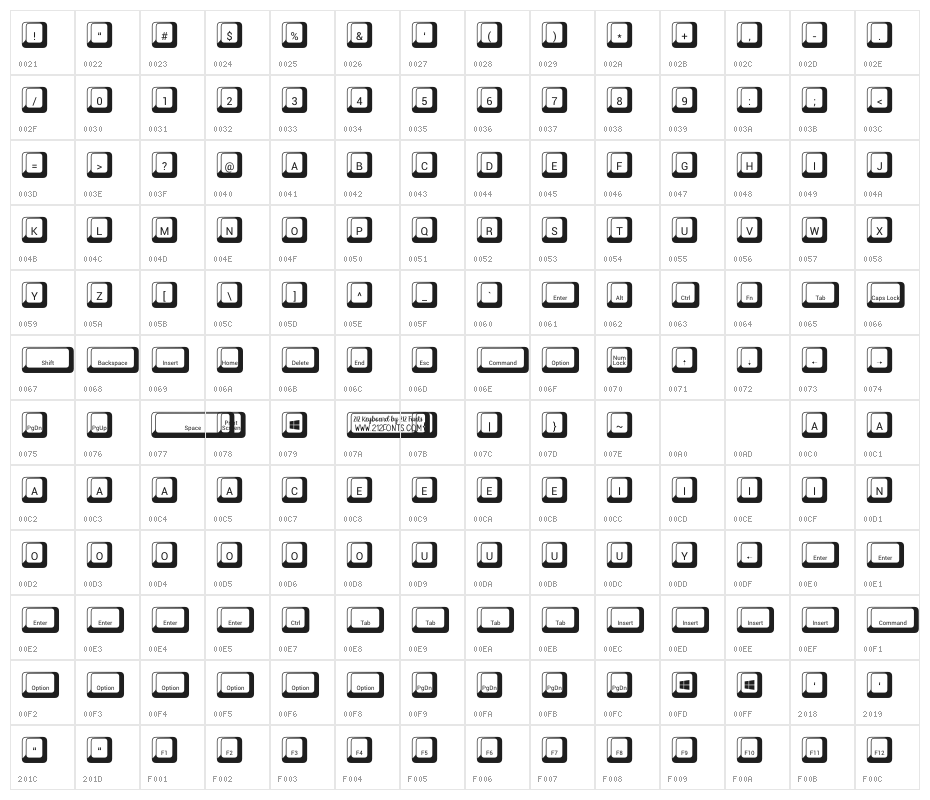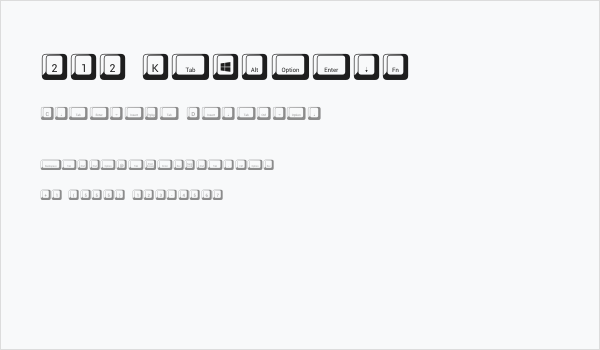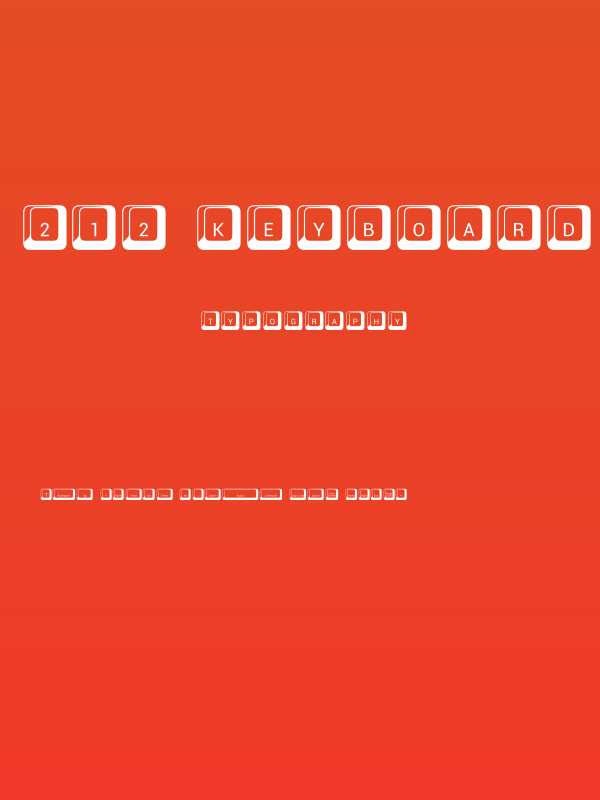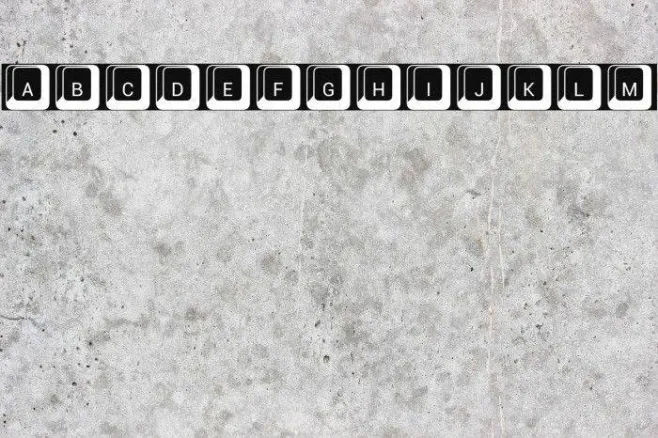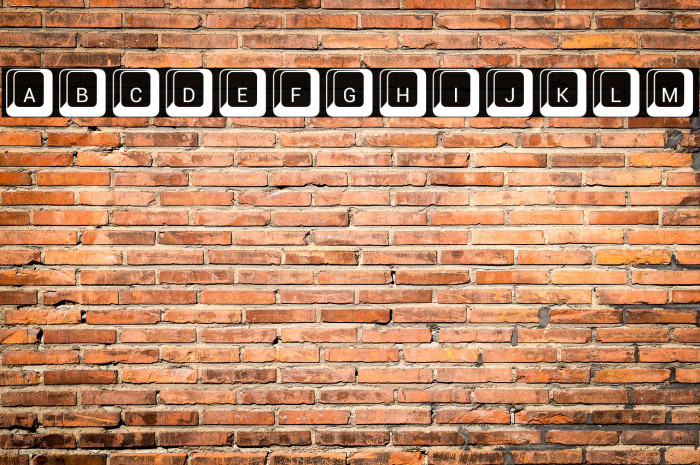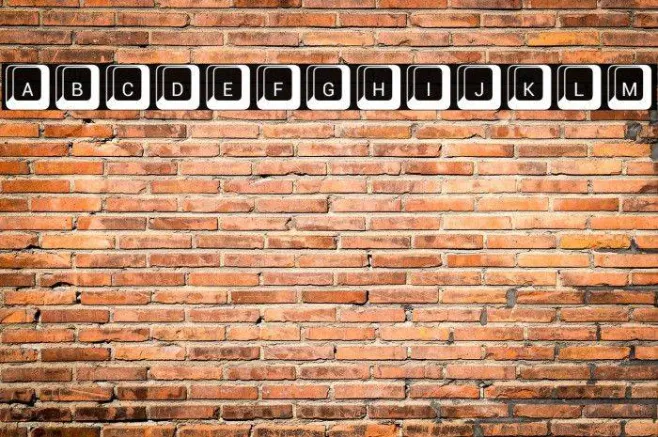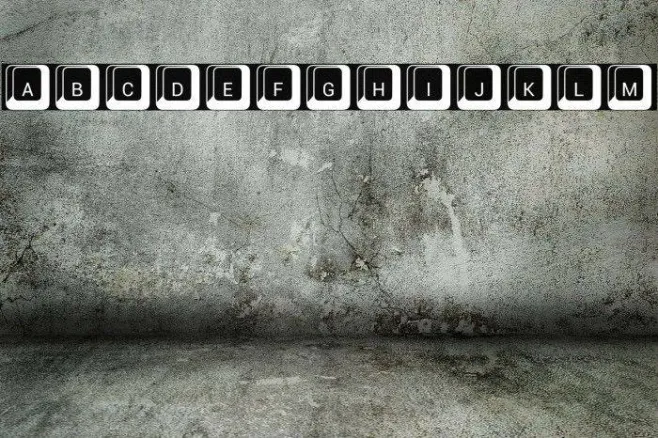
212 Keyboard Font
212 Keyboard Description
This font is designed to mimic the appearance of keys on a keyboard, with each character enclosed in a rectangular box that resembles a keycap. The letters, numbers, and symbols are centered within these boxes, giving a uniform and structured look. The font has a playful and modern style, suitable for projects that require a tech-savvy or digital aesthetic. The characters are bold and easy to read, making them ideal for display purposes. The spacing between the characters is consistent, providing a clean and organized appearance. The overall design is both functional and visually appealing, capturing the essence of a computer keyboard in a creative way.
| Use Case | Logos, Headlines, Digital Art |
| Proposed Projects | Ideal for tech-related designs, digital art projects, educational materials, or any creative work that benefits from a modern, tech-inspired aesthetic. |